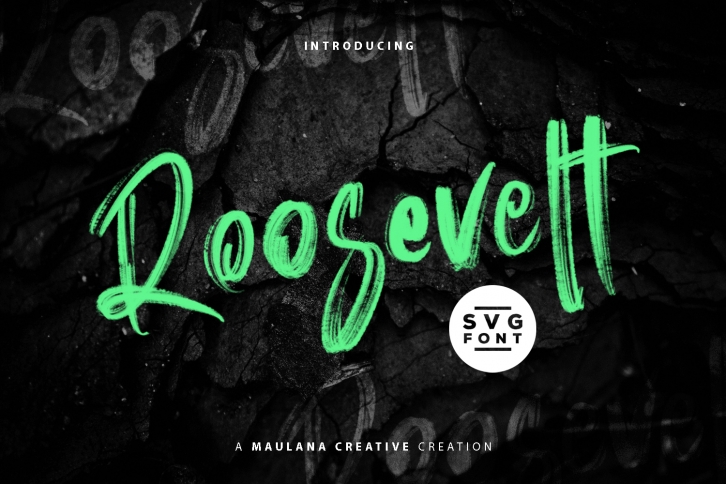
Roosevelt SVG Brush is a gorgeous font that was realeased on July 31, 2019. The font can be used in many style contexts and design environments. Perfect for invitations, magazines, websites, logos, and more! It was designed by Maulana Creative and the file size is 19.62 MB. Thanks for checking out this font!